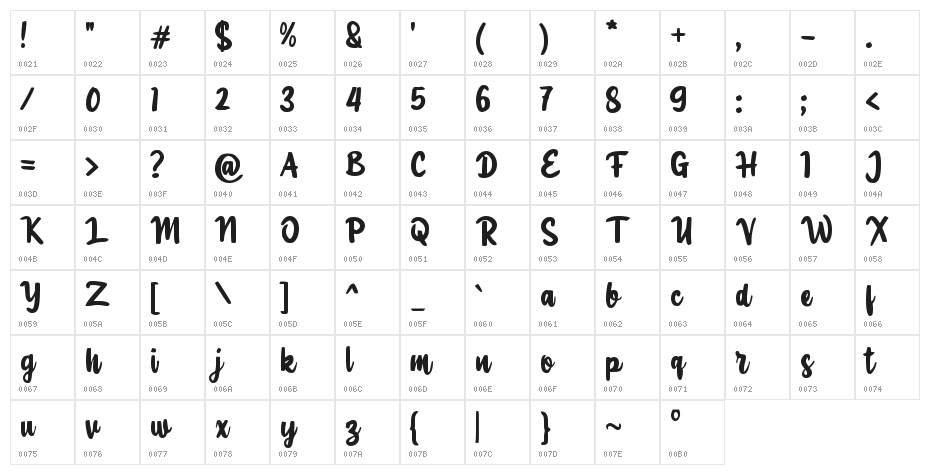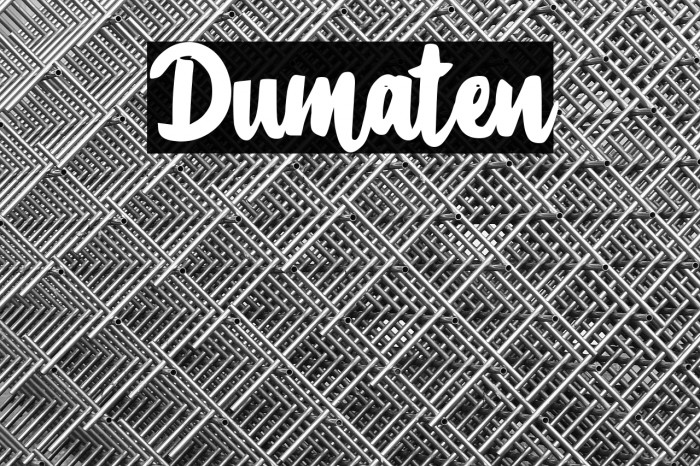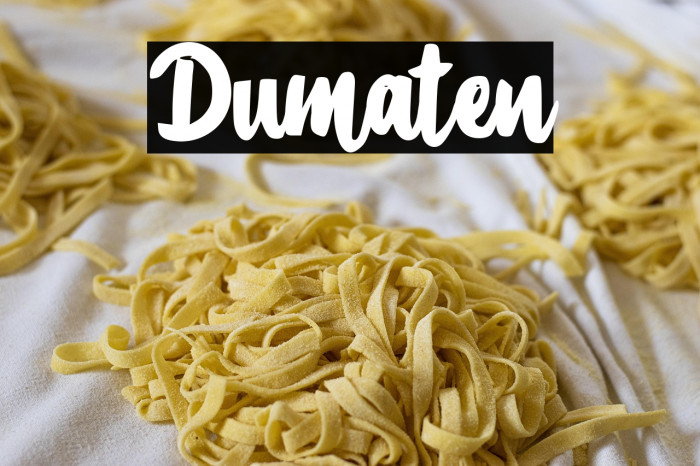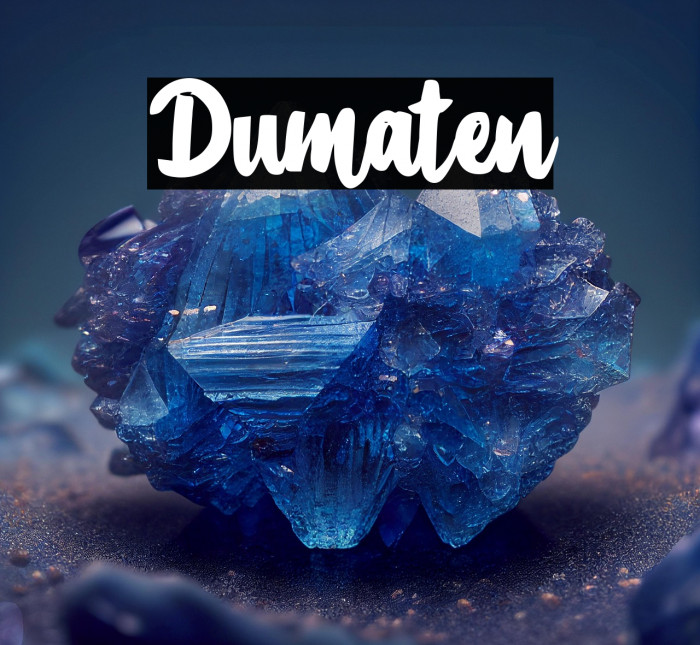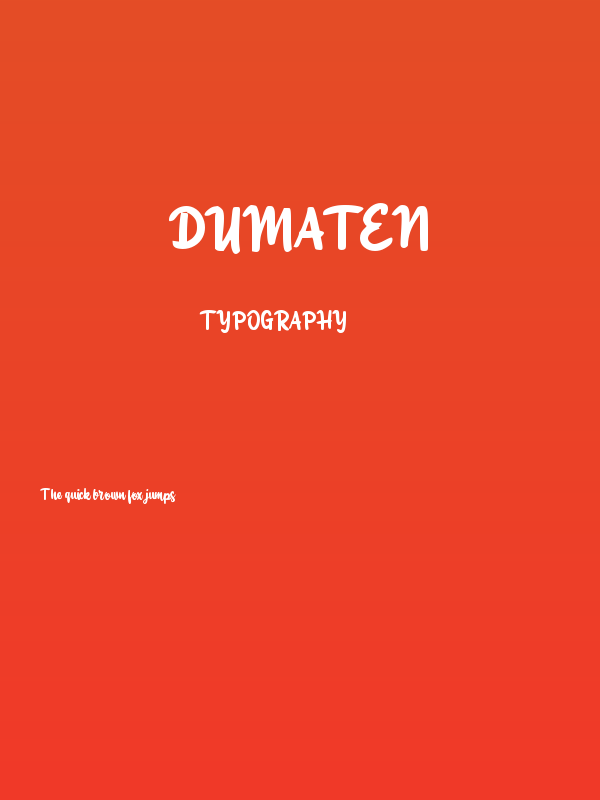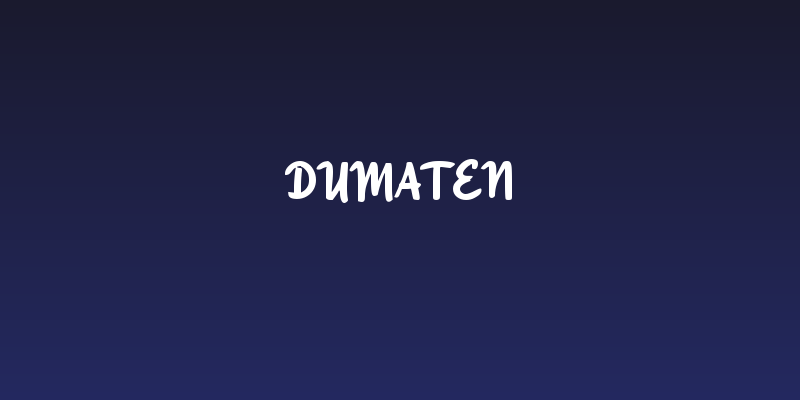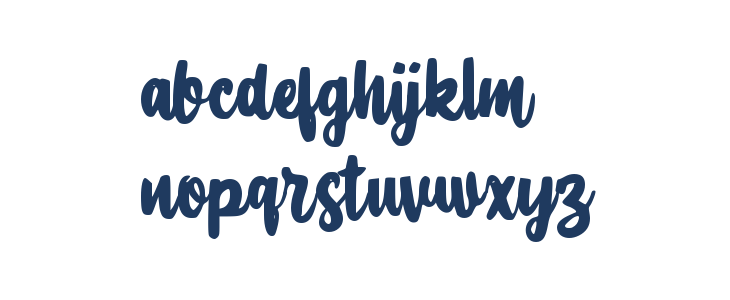
Dumaten Font
Dumaten Description
This font features a bold, playful script style with a handwritten appearance. The characters are rounded and have a smooth flow, giving it a casual and friendly vibe. The uppercase letters are slightly larger and more pronounced, while the lowercase letters maintain a consistent size and style. Numbers and special characters are designed to match the overall aesthetic, ensuring a cohesive look across all text. The font's thick strokes and rounded edges make it highly legible, even at smaller sizes, while its unique style adds personality to any design.